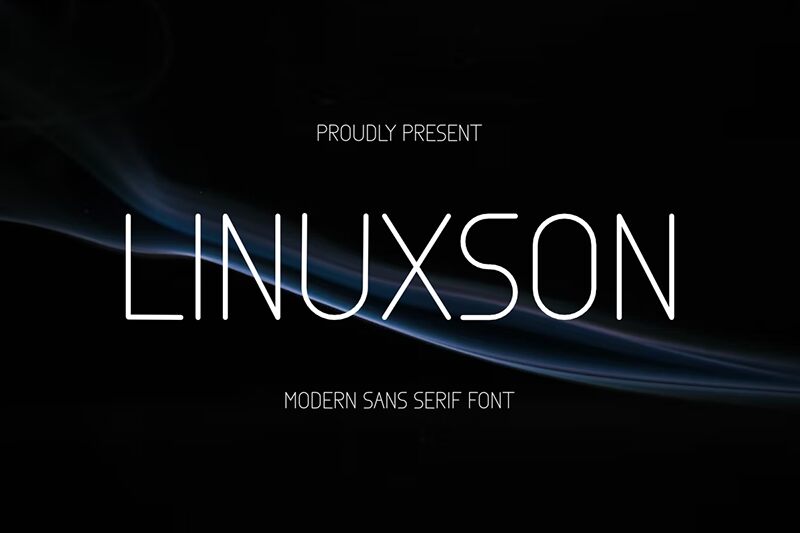
LINUXSON
Linuxson font by Muhammad Yafinuha is a sleek modern sans serif with strikingly balanced proportions. The monospace typeface has a geometric structure and uniform strokes across each letter. All its elements were tuned to deliver a minimalist and futuristic mood backed by clean lines and low-contrast characters.